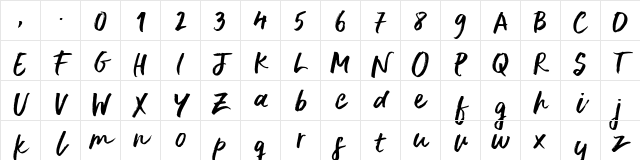
Delirium Sample Regular Free Font
Delirium Sample Regular
Foundry: Ana Parracho
Designer: Ana Parracho
Design Context for Delirium Sample
Delirium Sample is a composed and adaptable typeface that performs quietly and consistently across a wide range of design contexts.